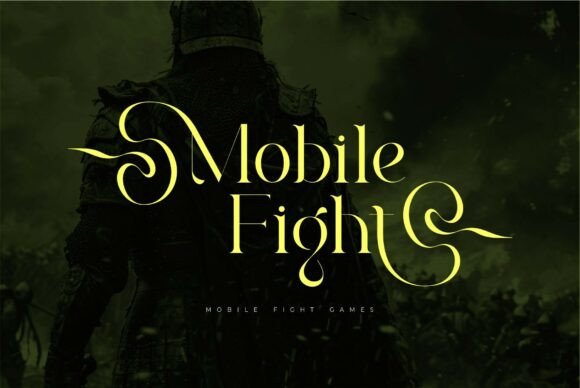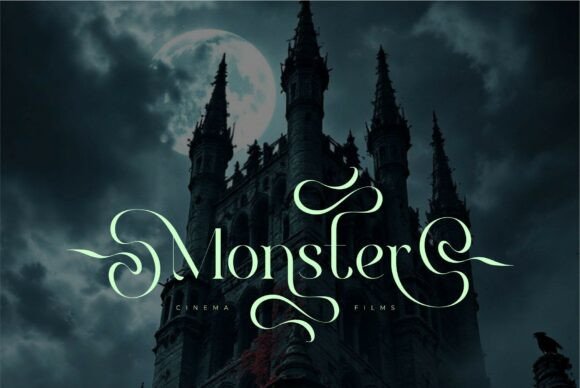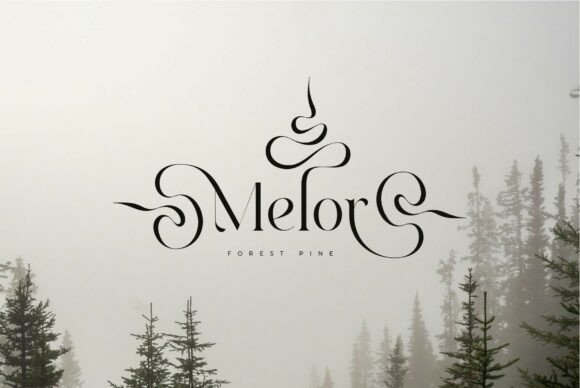
Introduction to Marlita Font
Do you remember that moment when you finally landed the perfect font for your design project? It’s like finding a missing piece to a puzzle, and everything falls into place. For designers, this feeling is invaluable, and it’s what drives us to keep pushing the boundaries of creative expression. Today, we’re excited to introduce you to a game-changer in the world of typography – the Marlita Font.
With its regal and modern design, the Marlita Font is more than just a stylish addition to your projects; it’s a design resource that elevates the quality of your work. Whether you’re working on a movie title, a game logo, or a boutique brand, this font is sure to make a statement. Its high-quality design and versatility make it an ideal choice for a wide range of creative projects, from magazine publications to social media branding.
Key Features of Marlita Font
- High-quality, professional font design perfect for creative projects
- Unique characteristics: elegant, modern, and sophisticated design, ideal for luxury branding and high-end creative projects
- Perfect for use in various design applications, including logos, branding, and print materials
Honest Review: Marlita Font
As a designer, I’m always on the lookout for high-quality design resources to elevate my creative projects. Recently, I had the chance to try out the Marlita Font, and I’m excited to share my honest review.
- Unique and elegant design: The Marlita Font has a beautiful, handwritten feel that adds a touch of sophistication to any design.
- High-quality fonts: The font is available in various weights and styles, making it a great resource for designers who need to create a cohesive look.
- Not ideal for small text: Due to its elegant design, the Marlita Font may not be the best choice for small text or body copy.
Overall, I’m impressed with the Marlita Font, and I think it’s a great addition to any designer’s toolkit. While it may have some limitations, its unique design and high-quality fonts make it a valuable resource for creative projects.
Marlita Font is a popular design resource for creating invitations, posters, and social media graphics. Its unique style and high quality make it a great addition to any creative project. With a transparent background, it’s perfect for creating graphics that can be easily overlaid on other images.